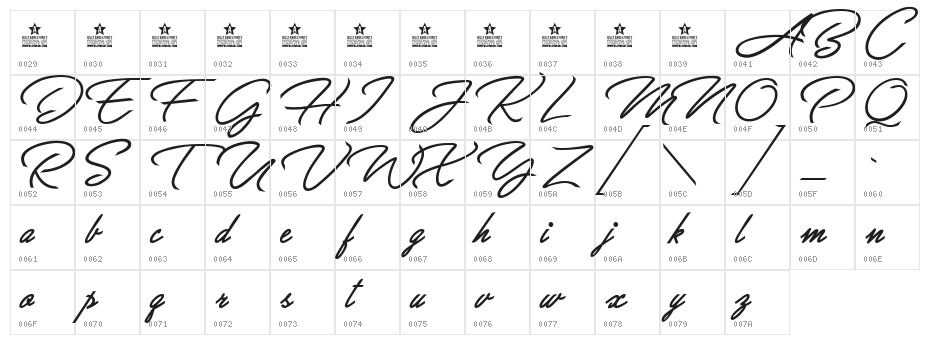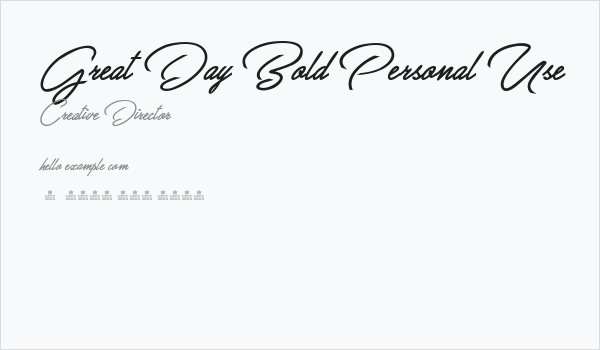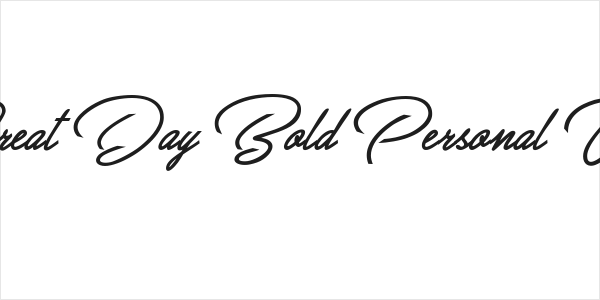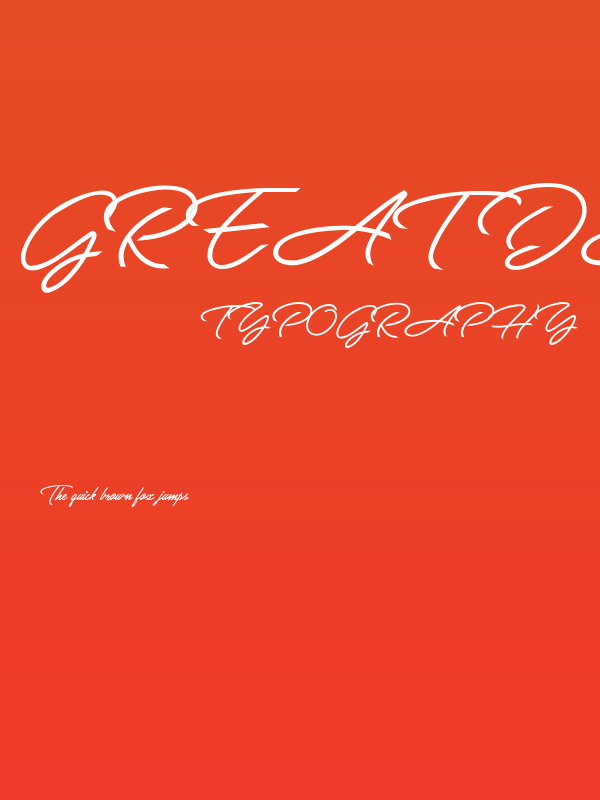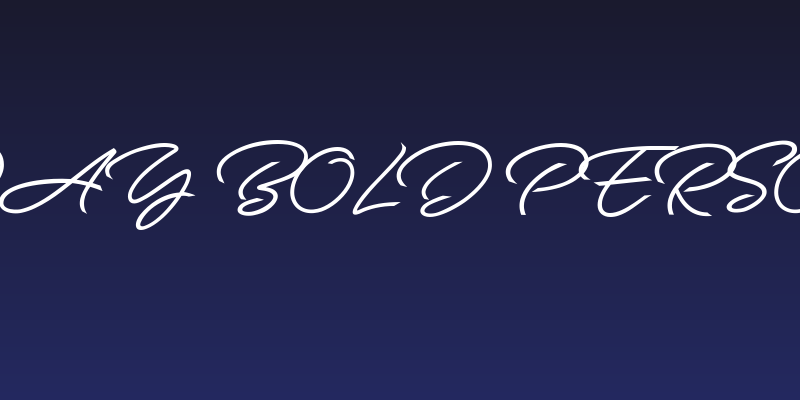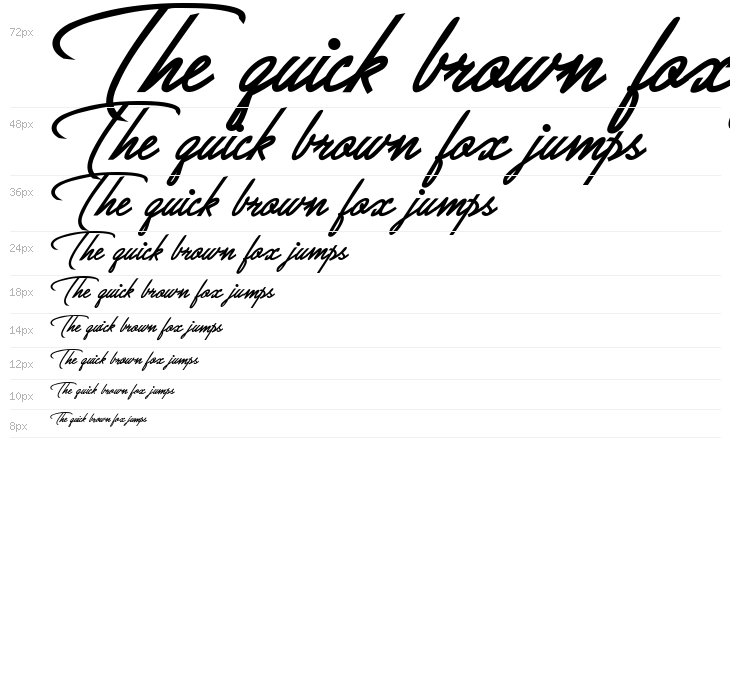
Great Day Bold Personal Use Font
Great Day Bold Personal Use Description
This font features a bold and dynamic script style, characterized by its fluid and connected letterforms. The uppercase letters exhibit a graceful, flowing design with elegant curves and loops, while the lowercase letters maintain a consistent, smooth appearance. The font conveys a sense of movement and energy, making it suitable for creative and expressive projects. The characters are well-balanced, with a slight slant that enhances the cursive nature of the typeface. The overall impression is one of sophistication and flair, ideal for making a statement in design work.
| Proposed Projects | Ideal for wedding invitations, branding, logos, and creative design projects that require a touch of elegance and personality. |